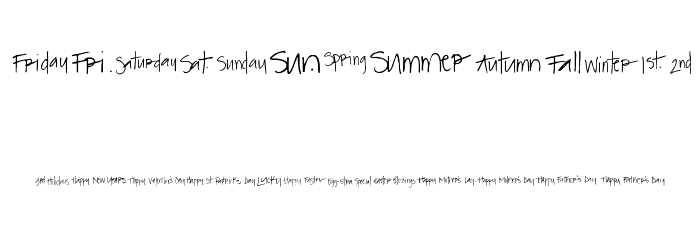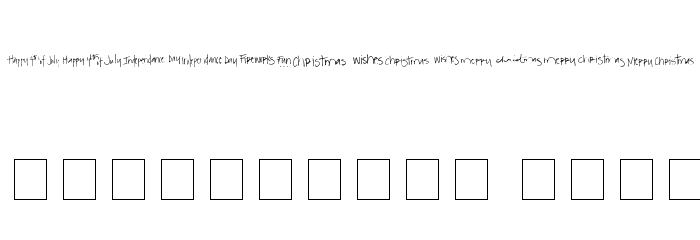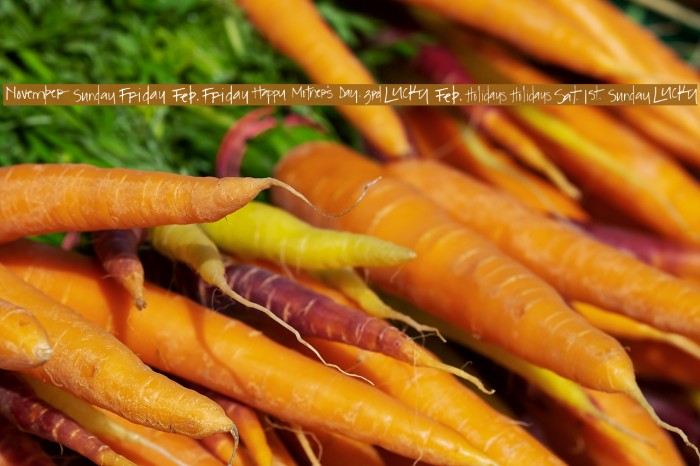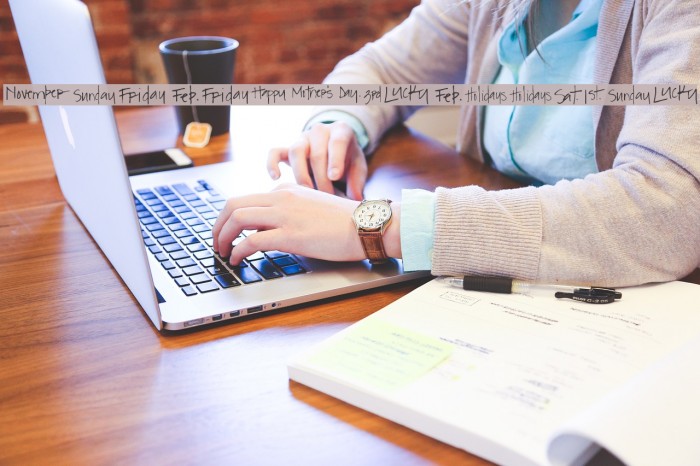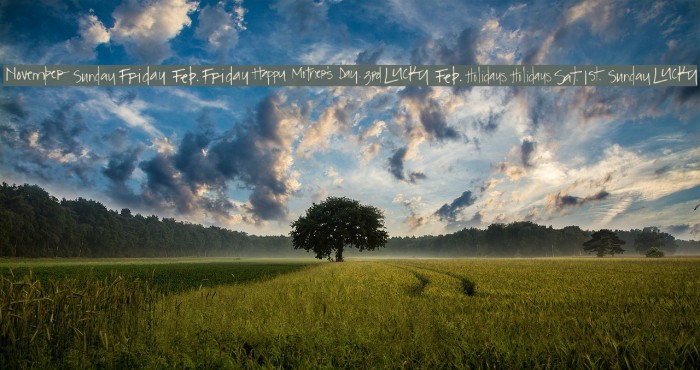
Pea Dawn's Doodles Font
This playful and whimsical font features a handwritten style with a casual and relaxed appearance. The characters are slightly irregular, giving it a personal and informal touch. The strokes are varied, with some letters having loops and curls, adding to its charm. The font maintains a consistent baseline, but the heights of the letters vary, creating a dynamic and lively look. It's perfect for projects that require a friendly and approachable feel, such as greeting cards, invitations, or personal notes. The font's unique style makes it stand out, while still being legible and easy to read.
A playful, handwritten font with a whimsical and informal style.
- Proposed Projects: Ideal for greeting cards, invitations, personal notes, and creative projects.